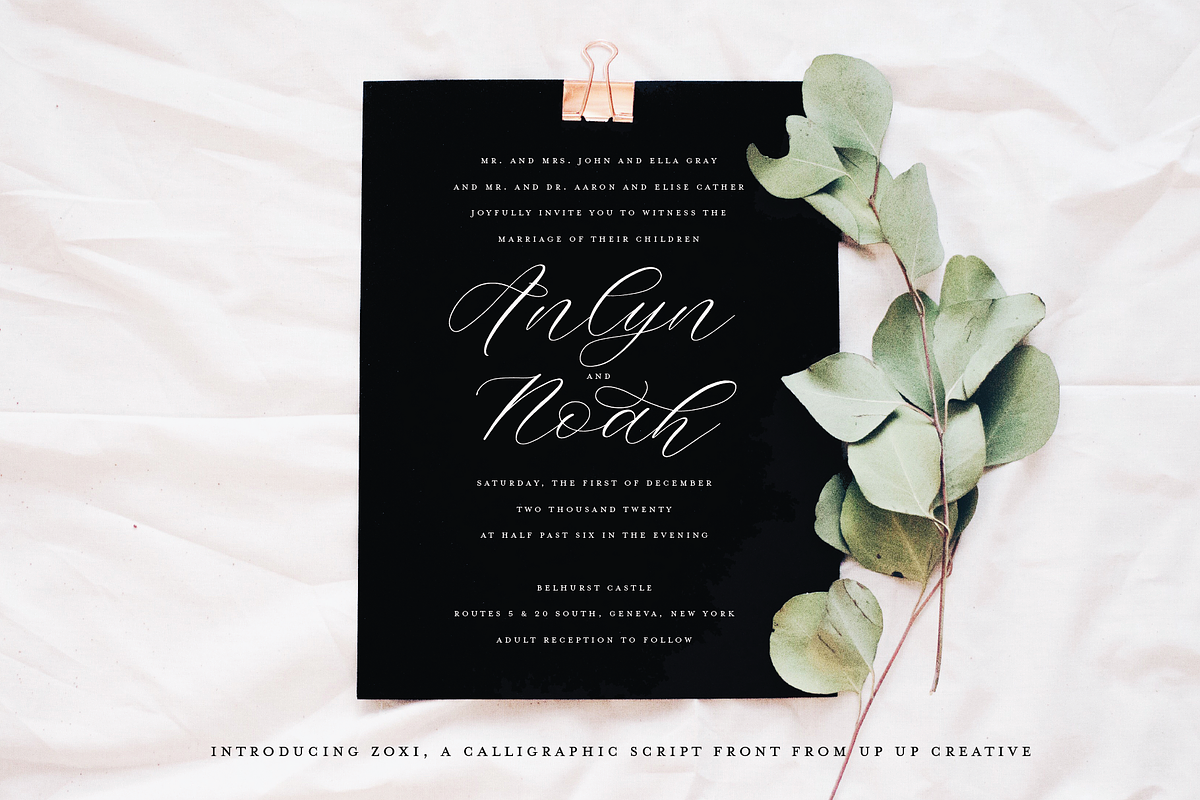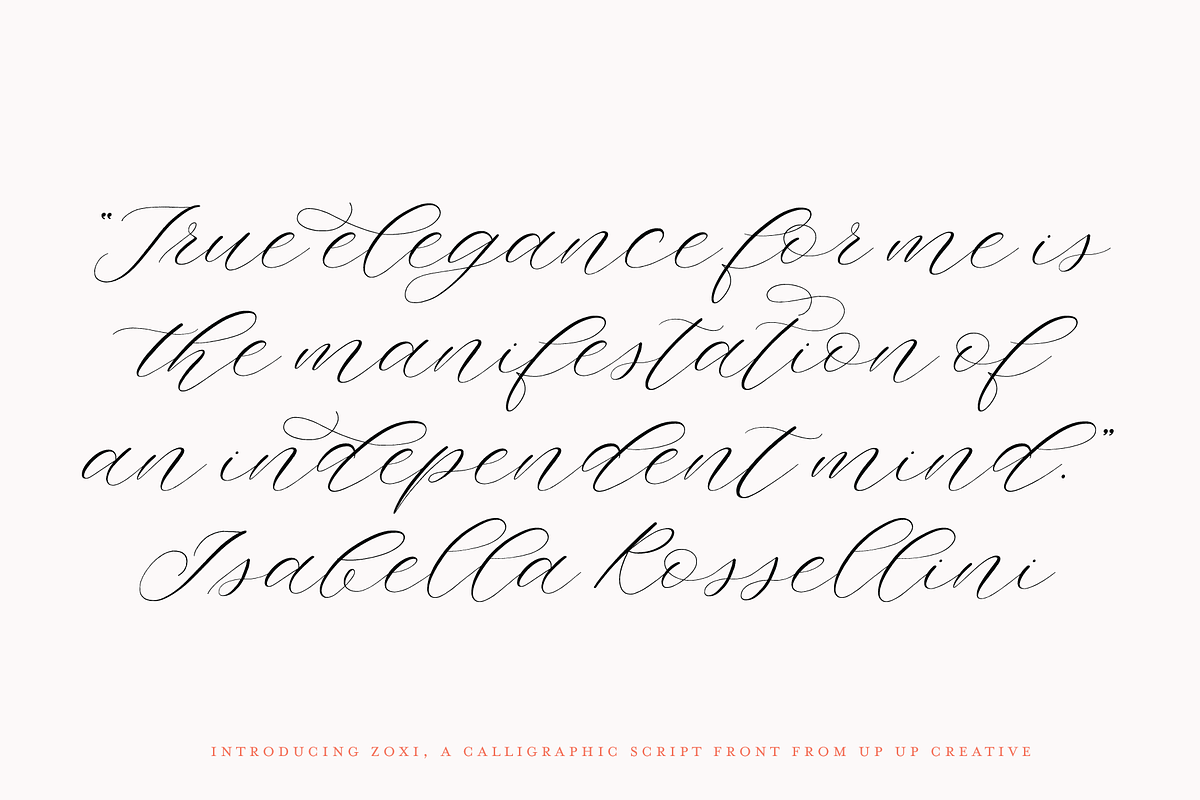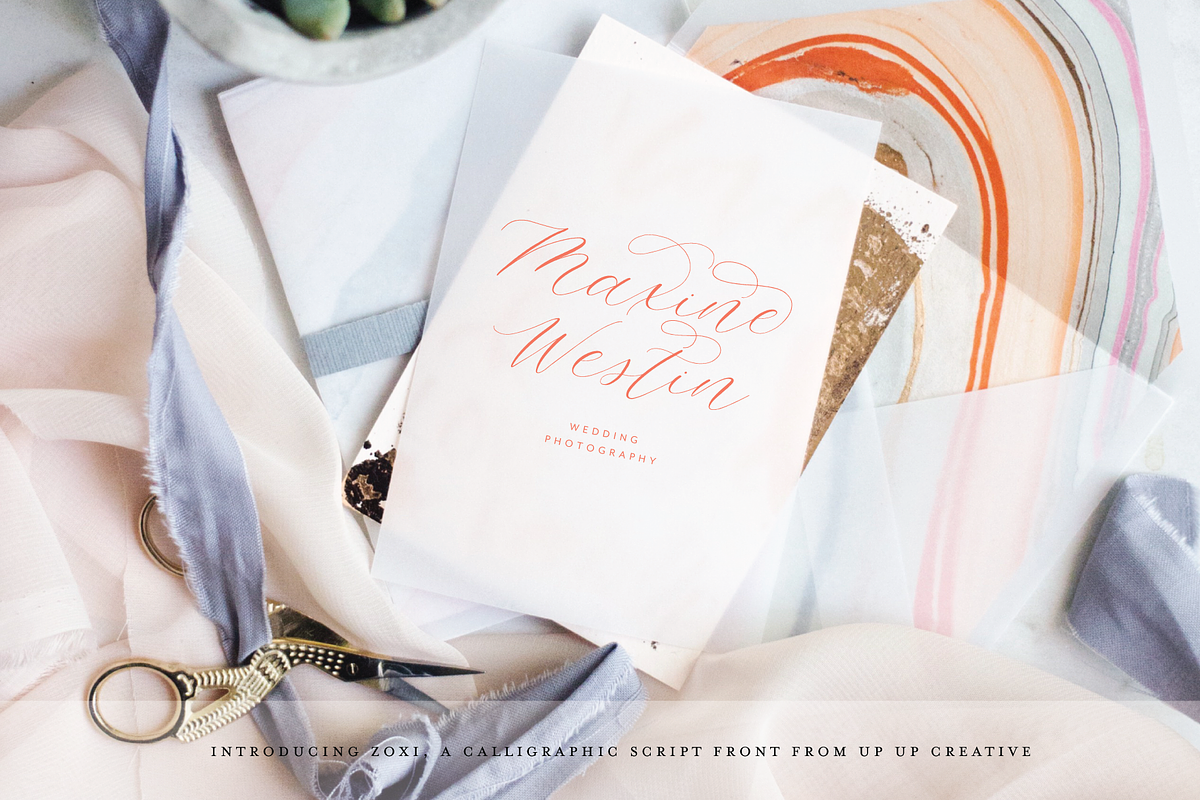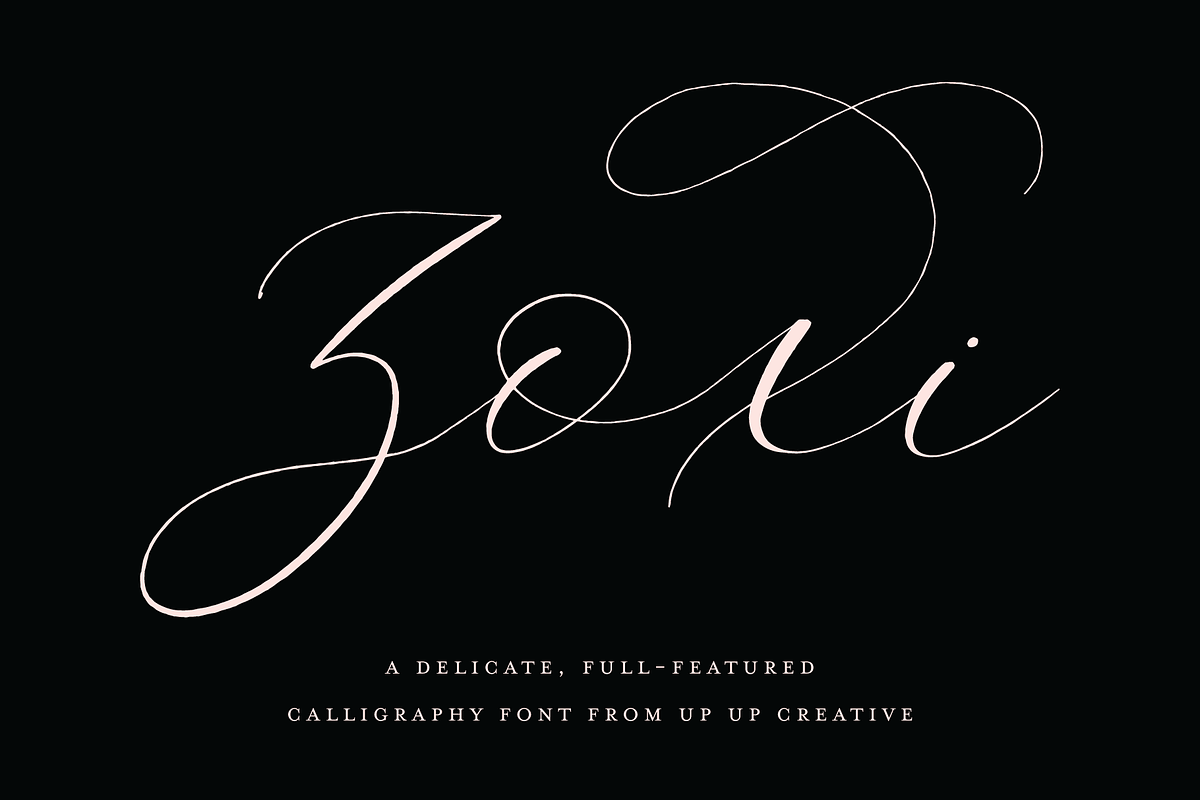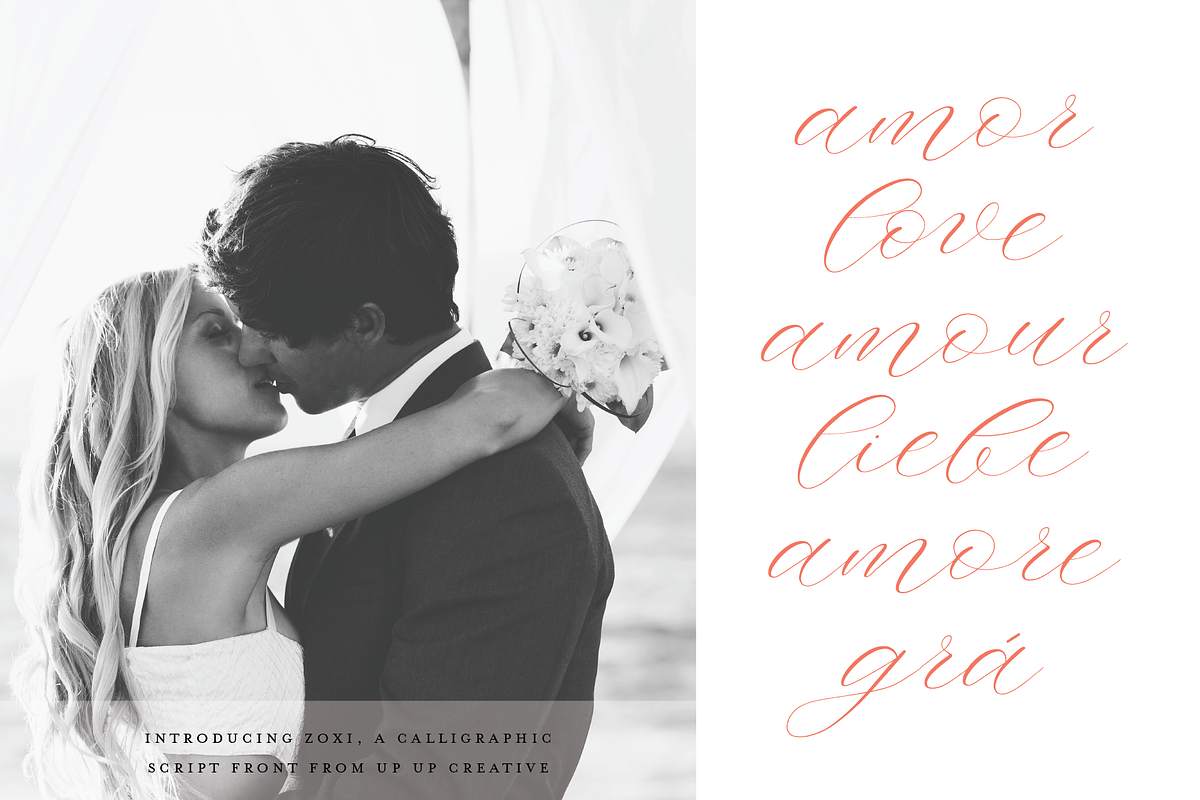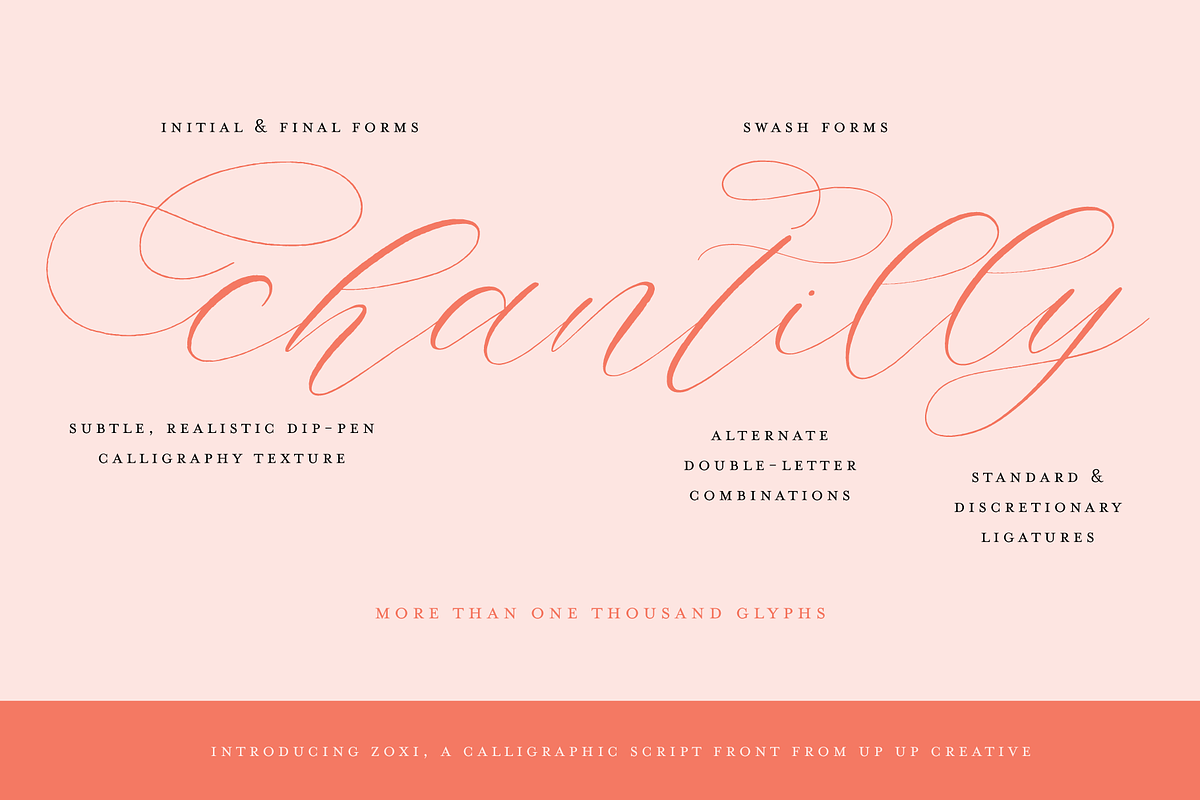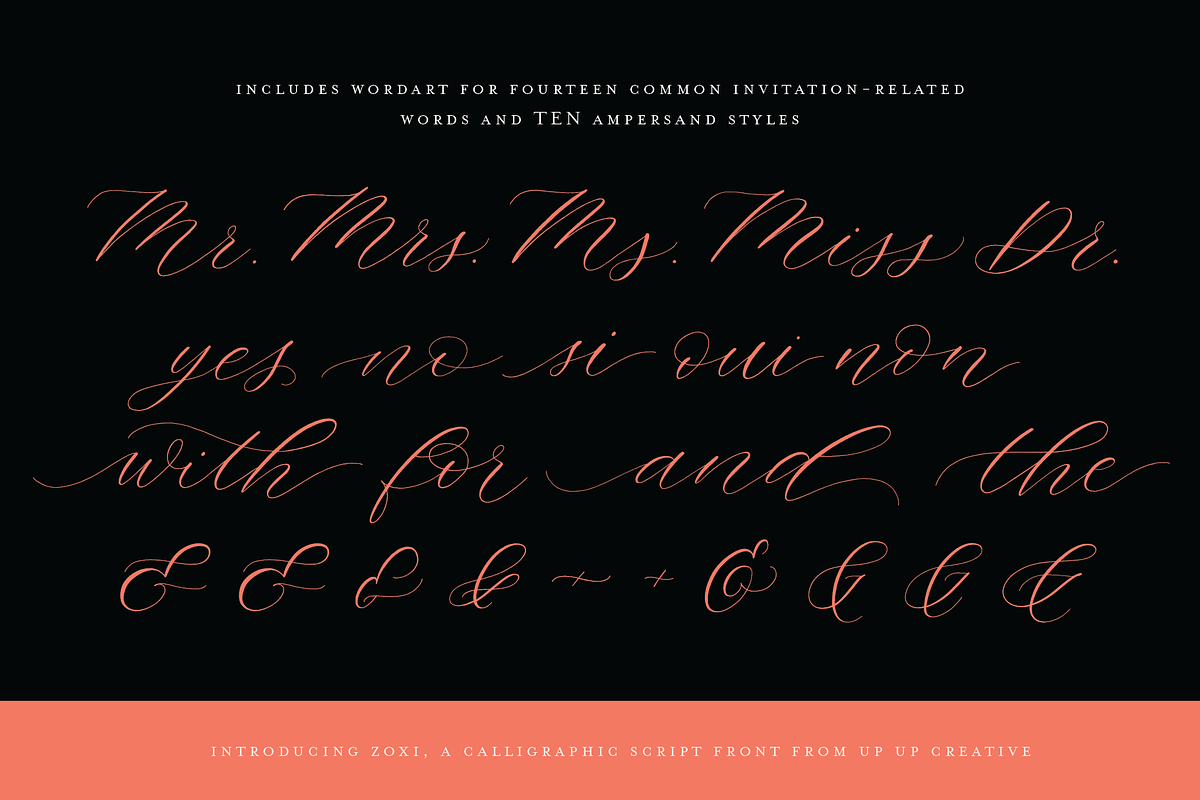
Zoxi, a Calligraphy Script Font
Introducing Zoxi, an elegant, full-featured script font with subtle dip-pen calligraphy texture and tons of OpenType features. Hand-lettered with delicate thin strokes and more substantial thick strokes, Zoxi is particularly well-suited to invitations, branding, and editorial design.
Zoxi comes with more than 1000 glyphs! Specific OpenType features include contextual alternates, stylistic alternates, initial and final forms, multiple alternate glyphs for many letters (accessed through the glyphs panel), multilingual support (including multiple currency symbols), 158 standard and discretionary ligatures, standard numbers, and TEN ampersand styles. Zoxi also includes wordart for fourteen common invitation-related words and a set of full-scale ordinals (both accessed through the glyphs panel.